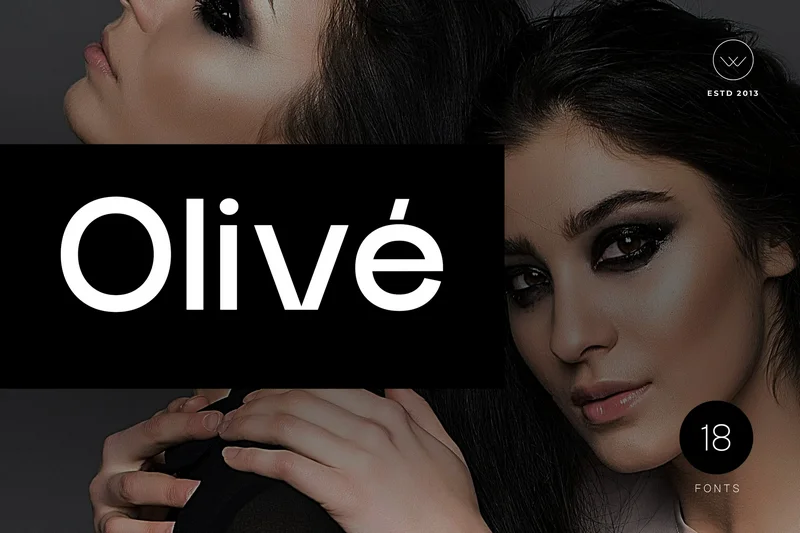
Olive – Modern and Minimal Sans-serif Font Family
Olivé is a modern high-fashion sans-serif typeface crafted for elegance, clarity, and timeless sophistication. With its smooth letterforms, balanced proportions, and subtle curves, Olivé is ideal for editorial design, fashion branding, luxury packaging, and stylish digital interfaces.
Designed to reflect the grace and glamour of fashion culture, Olivé includes extended Latin support and a full set of accented characters (such as á, à, â, ä, é, è, ê, ë, and more), making it suitable for multilingual applications.
Olivé features 9 weights, from Hairline to Black, each paired with its own beautifully drawn matching italics. Whether you’re creating magazine headlines, brand logos, lookbooks, or minimalist web layouts. Olivé offers refined readability and high visual impact.